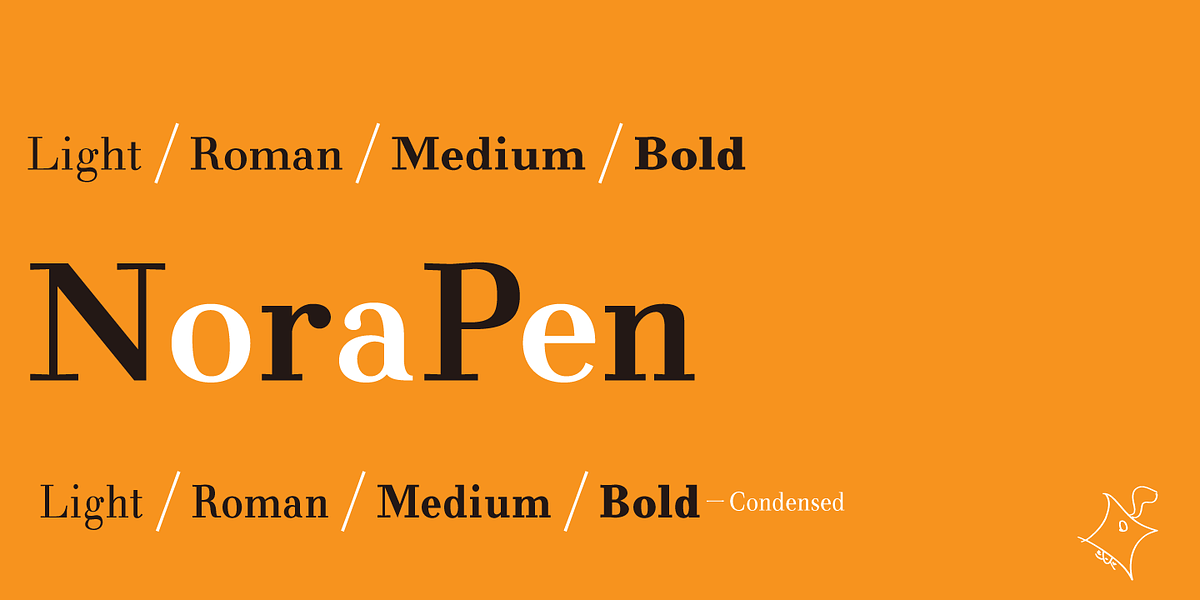
NoraPen
NoraPen is a modern serif font that draws inspiration from the classic Walbaum typeface. While referencing Walbaum's design, the font aims for balance and avoids being a direct copy. The name itself reflects this duality: 'Nora,' inspired by the complex protagonist in Ibsen's play 'A Doll's House,' and 'Pen,' suggesting a sense of enclosure or definition.